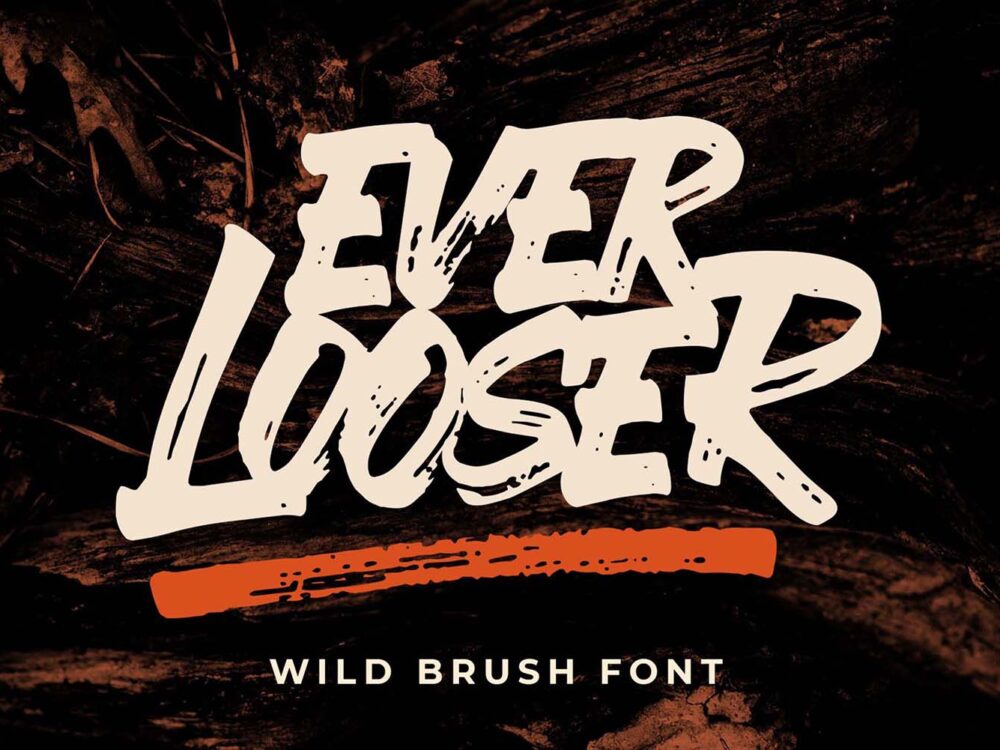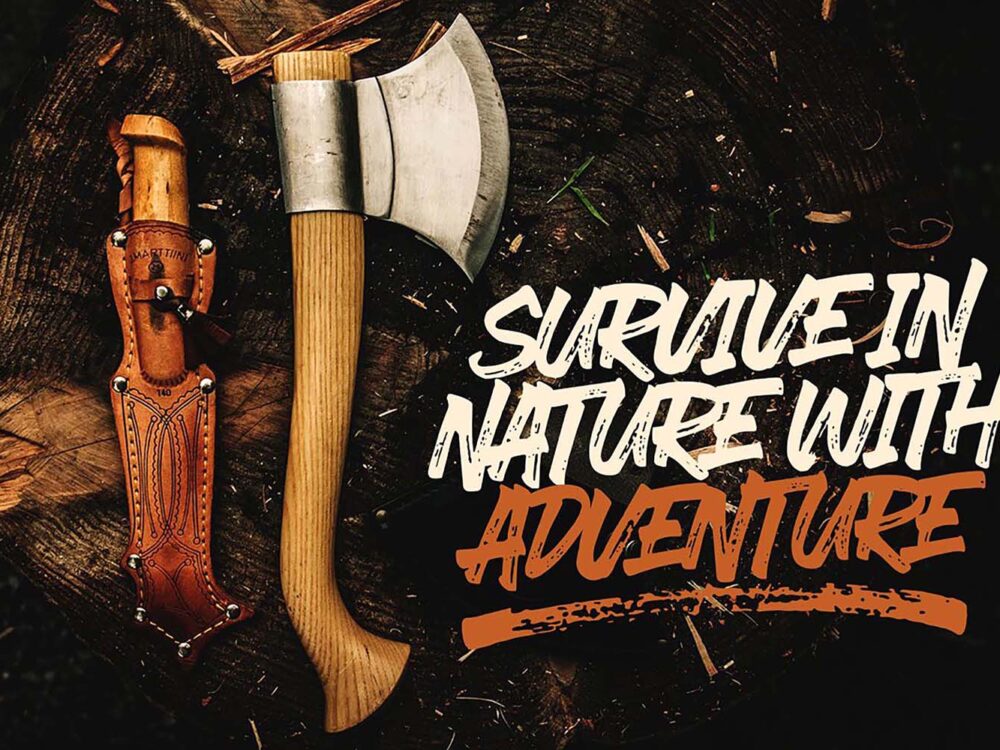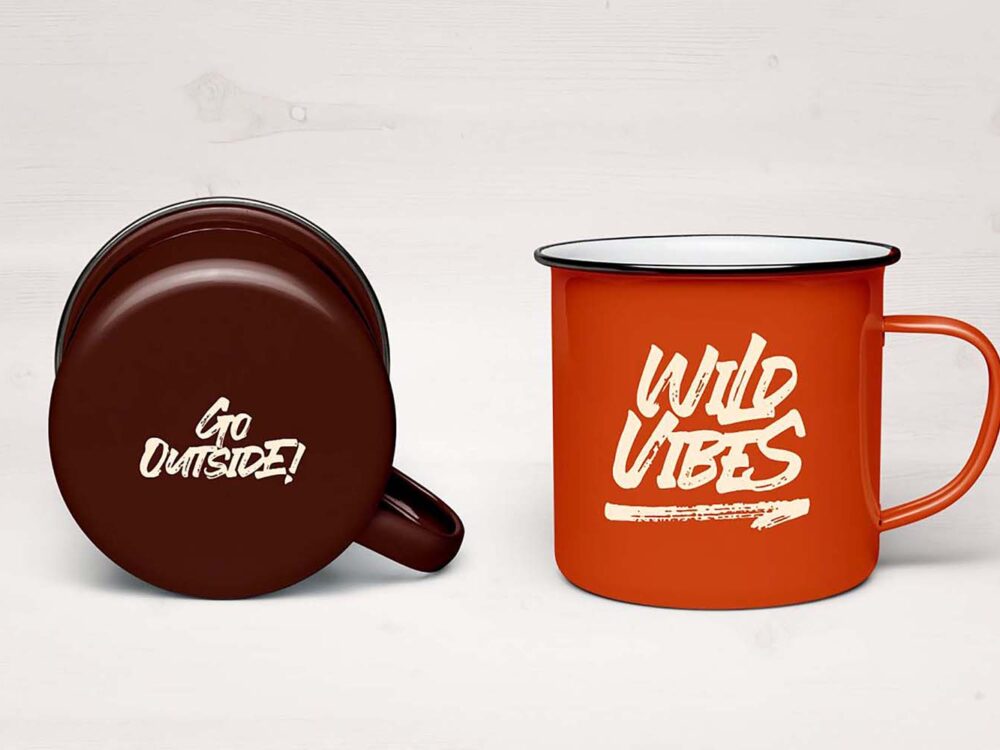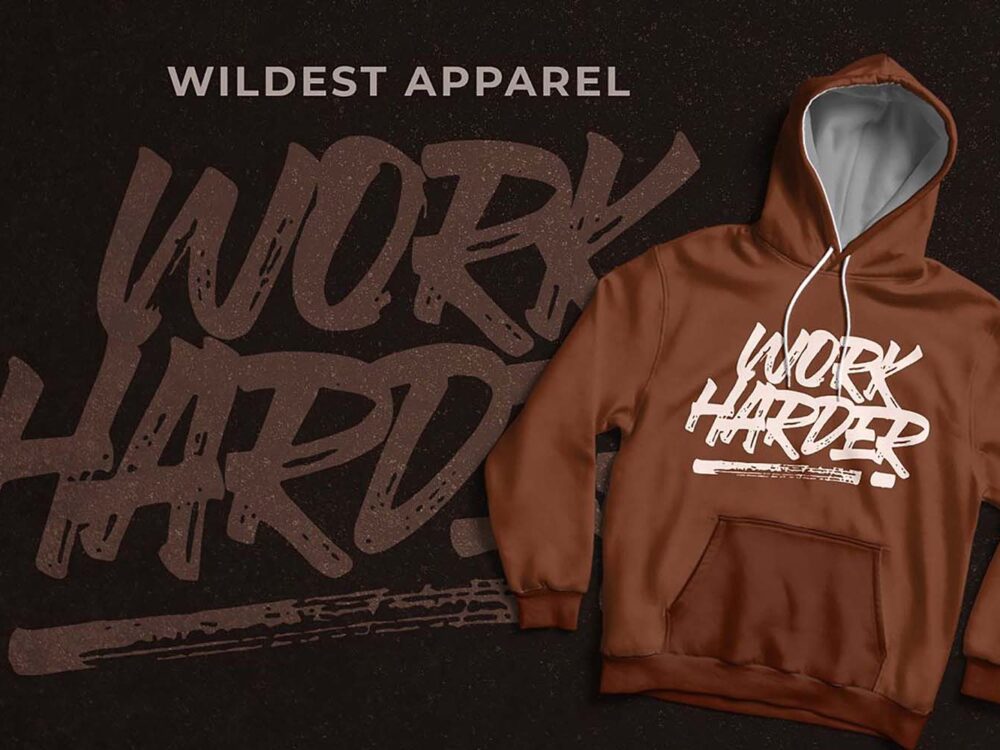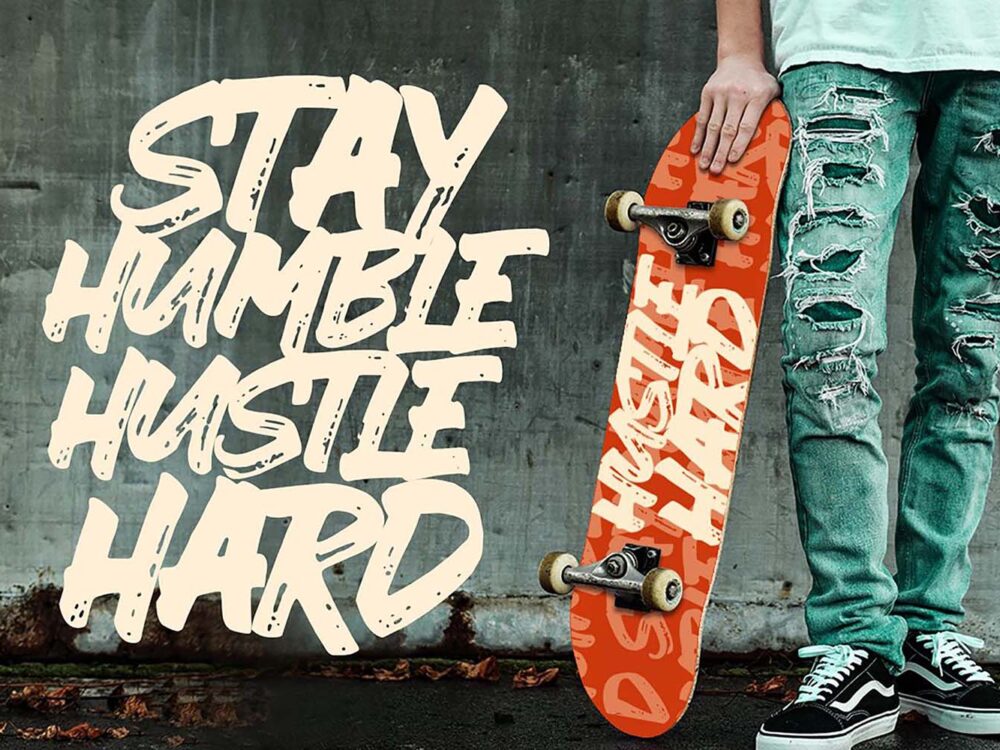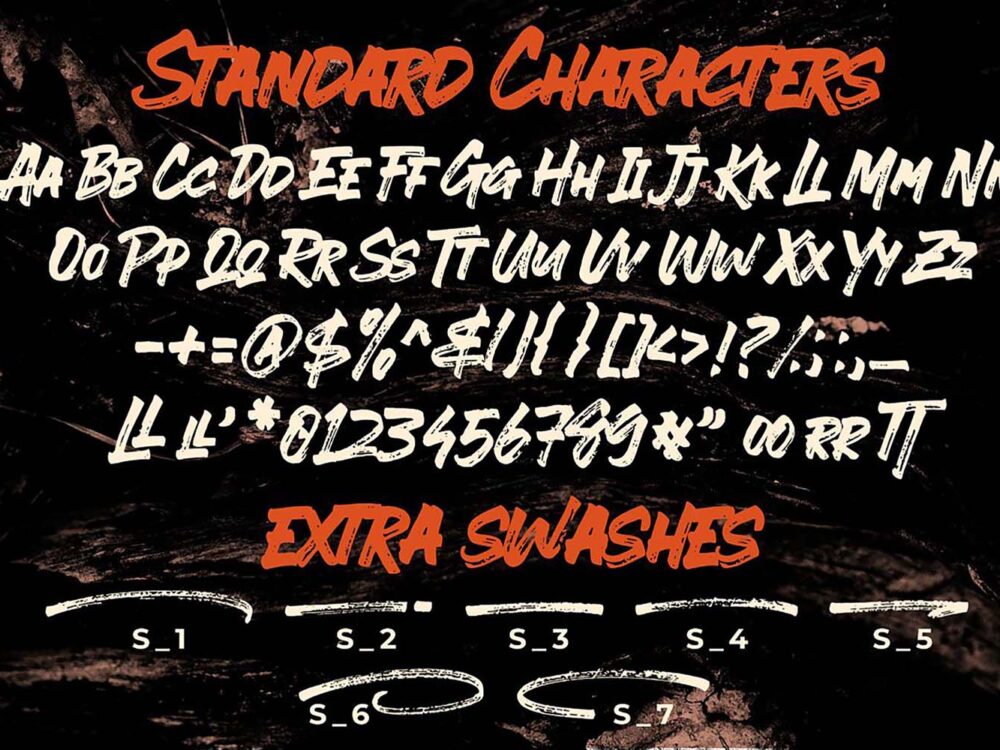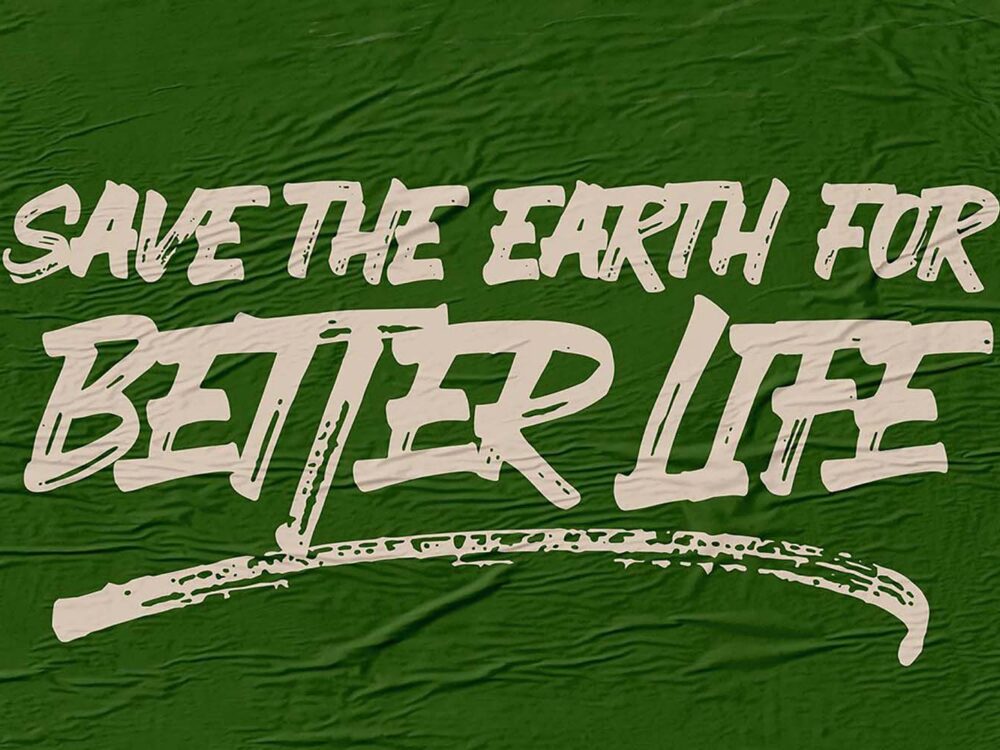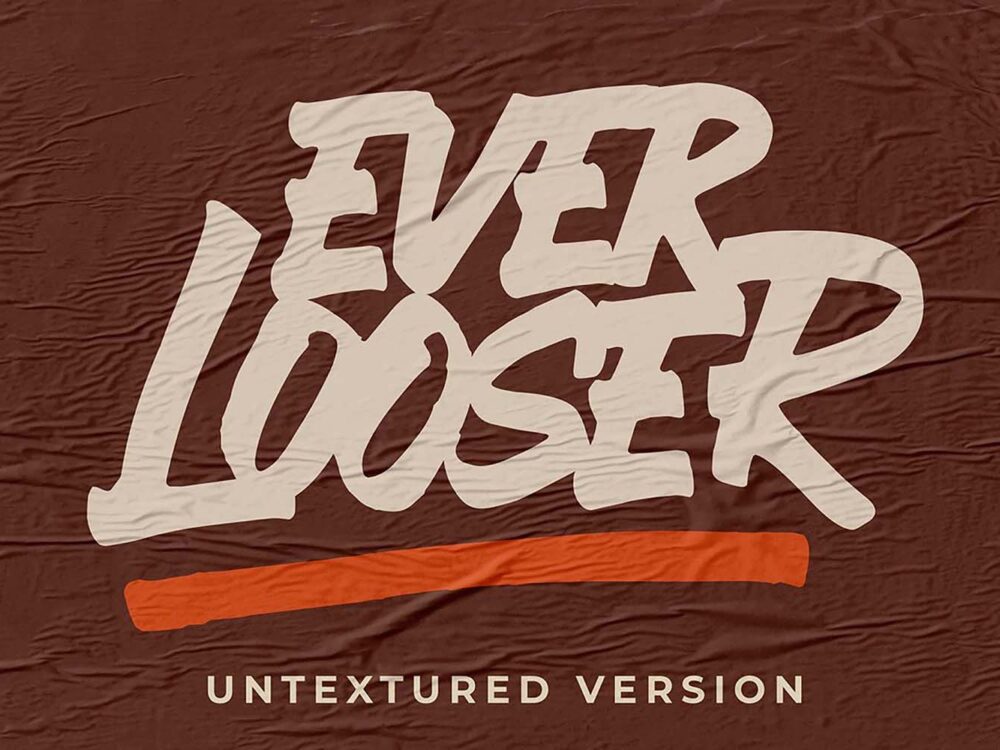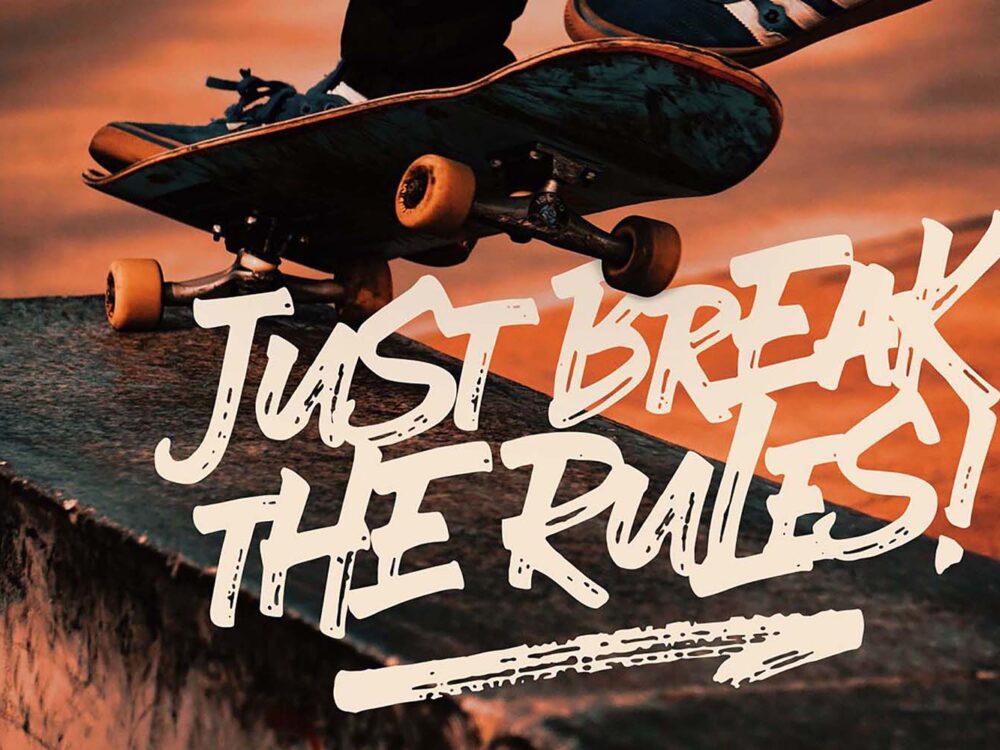
Ever Looser Wild Brush Font
Ever Looser Wild Brush Font is a beautiful handwritten font with a crisp texture. You can use this font for any design that requires a handwritten font. Create memorable designs for posters, cards, logos, clothing prints, and more with Ever Looser Wild Brush Font. So, if you wish to access more features and use it for commercial work, go get the full version too.